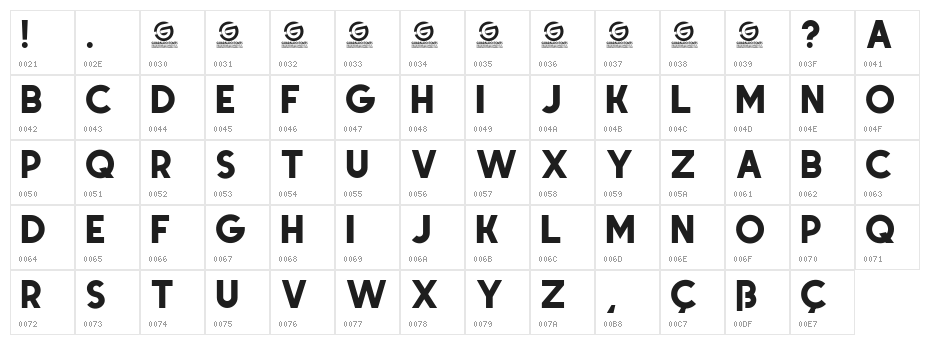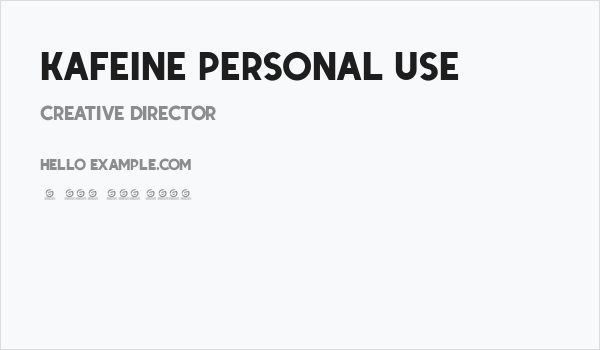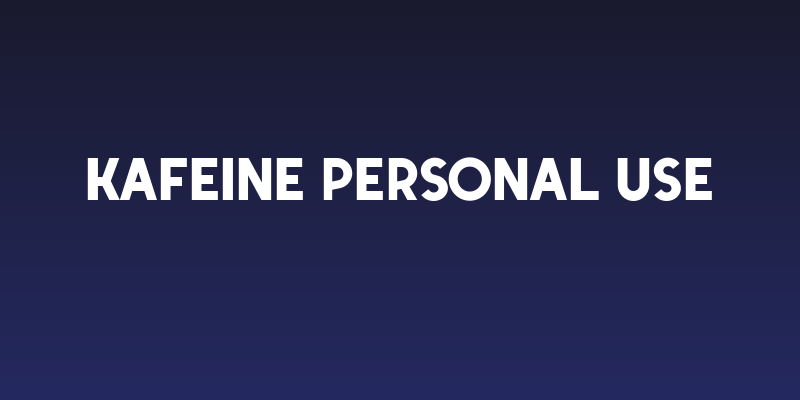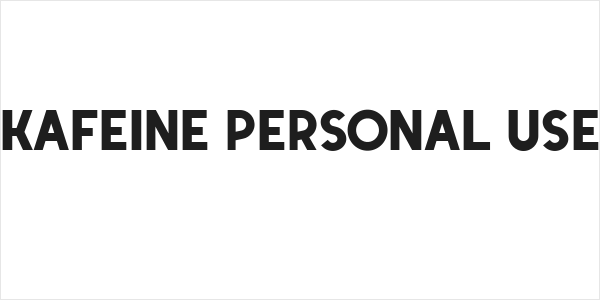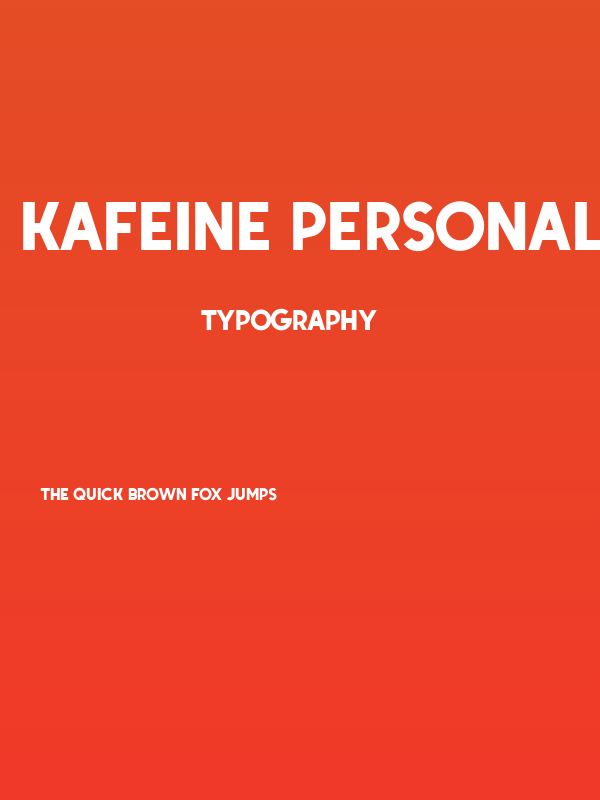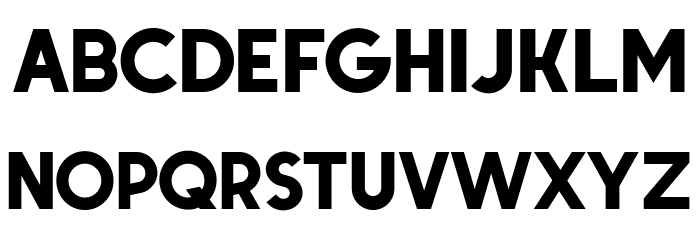
Kafeine Personal Use Font
Kafeine Personal Use Description
This font features bold, uppercase letters with a strong geometric influence, characterized by clean lines and a modern aesthetic. The characters are evenly spaced, providing a balanced and cohesive look. The font's simplicity and clarity make it highly legible, even at smaller sizes. It lacks any decorative elements, focusing instead on a straightforward, impactful design. The punctuation marks are similarly bold and match the overall style, ensuring consistency across all characters.
| Proposed Projects | Ideal for branding projects, headlines, posters, and any design requiring a strong visual impact. |